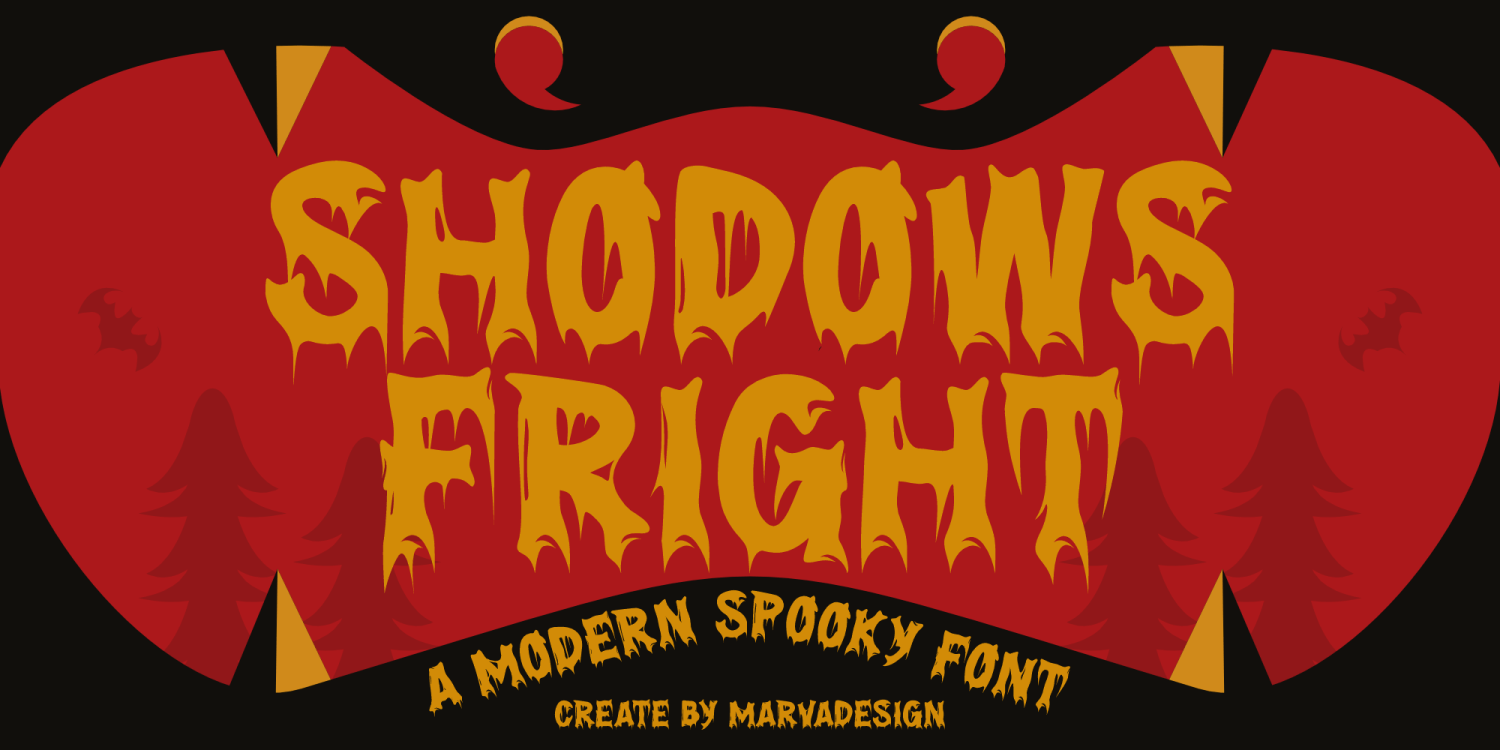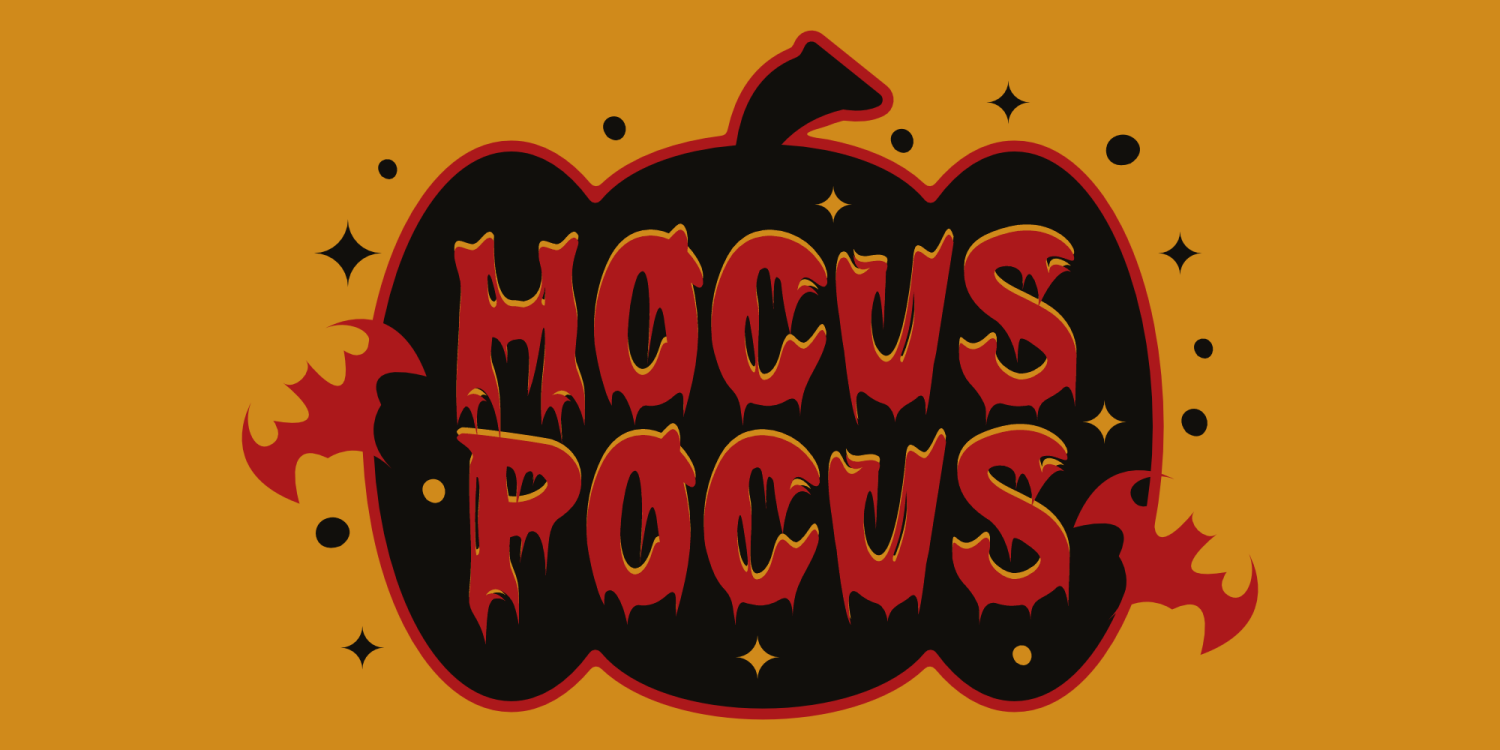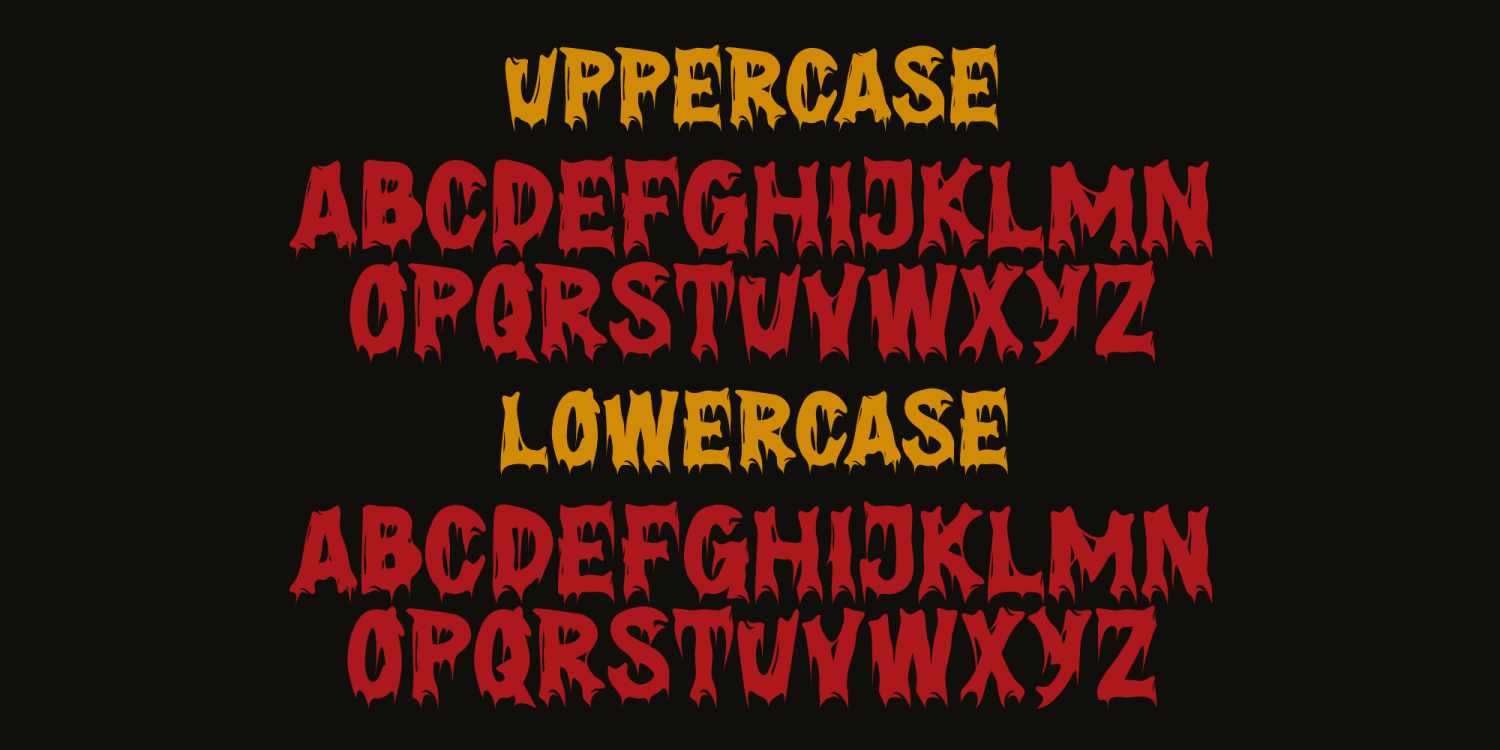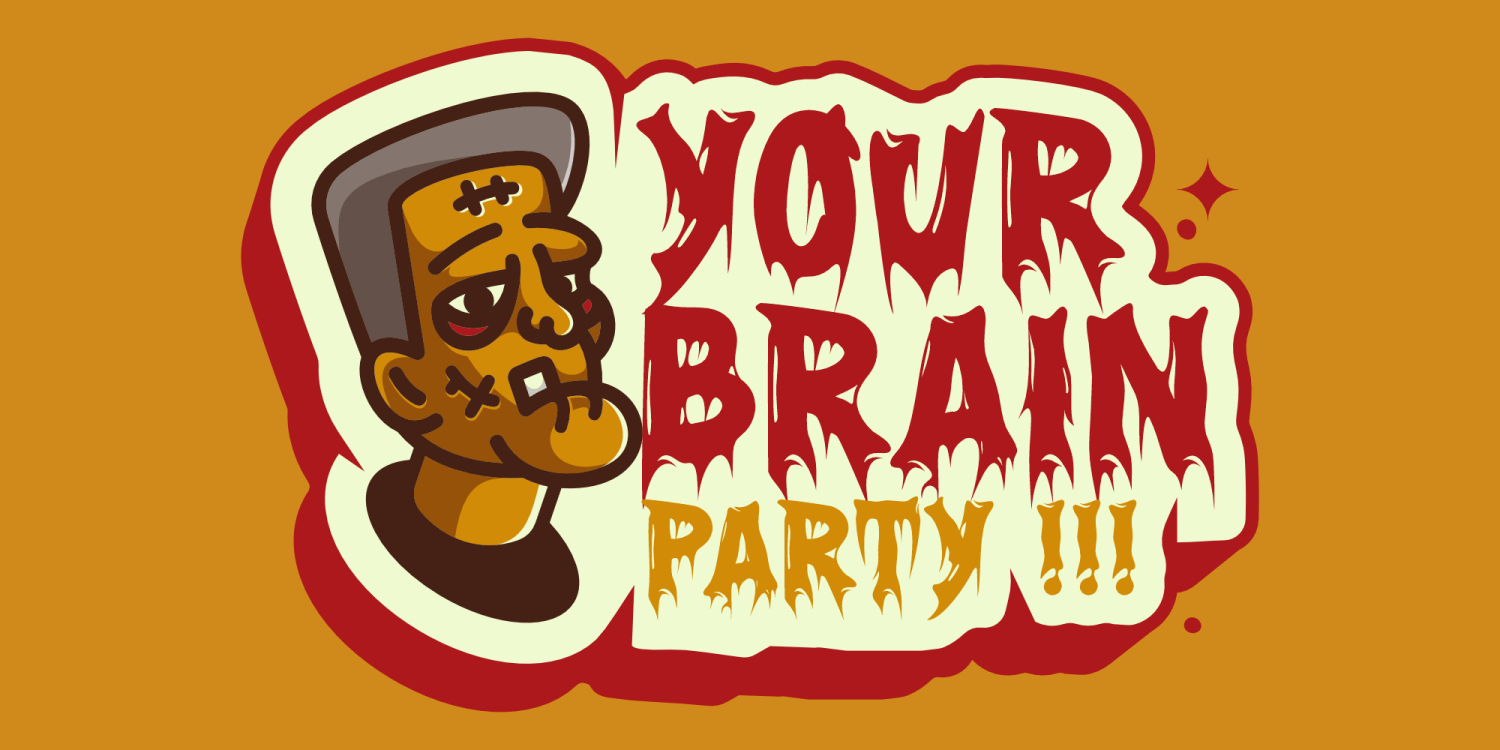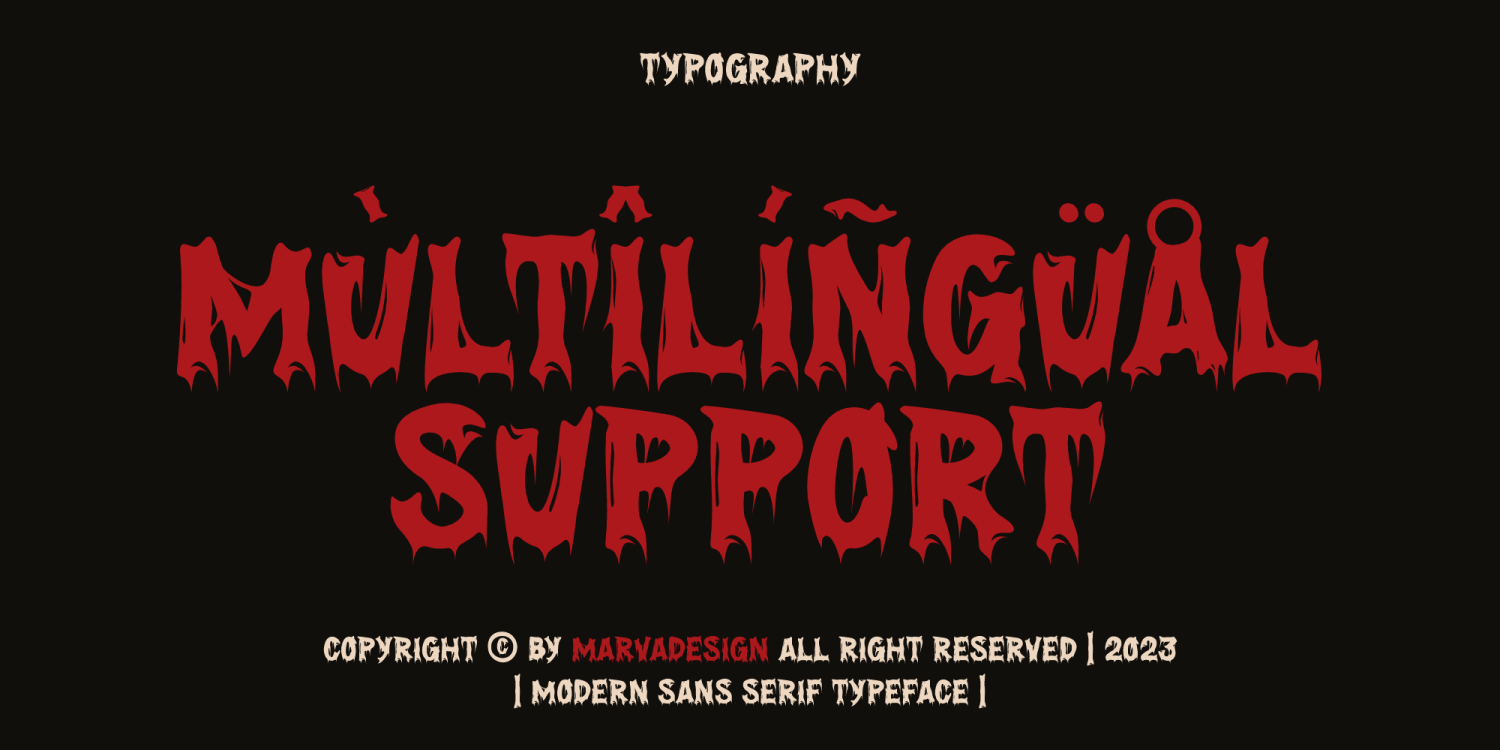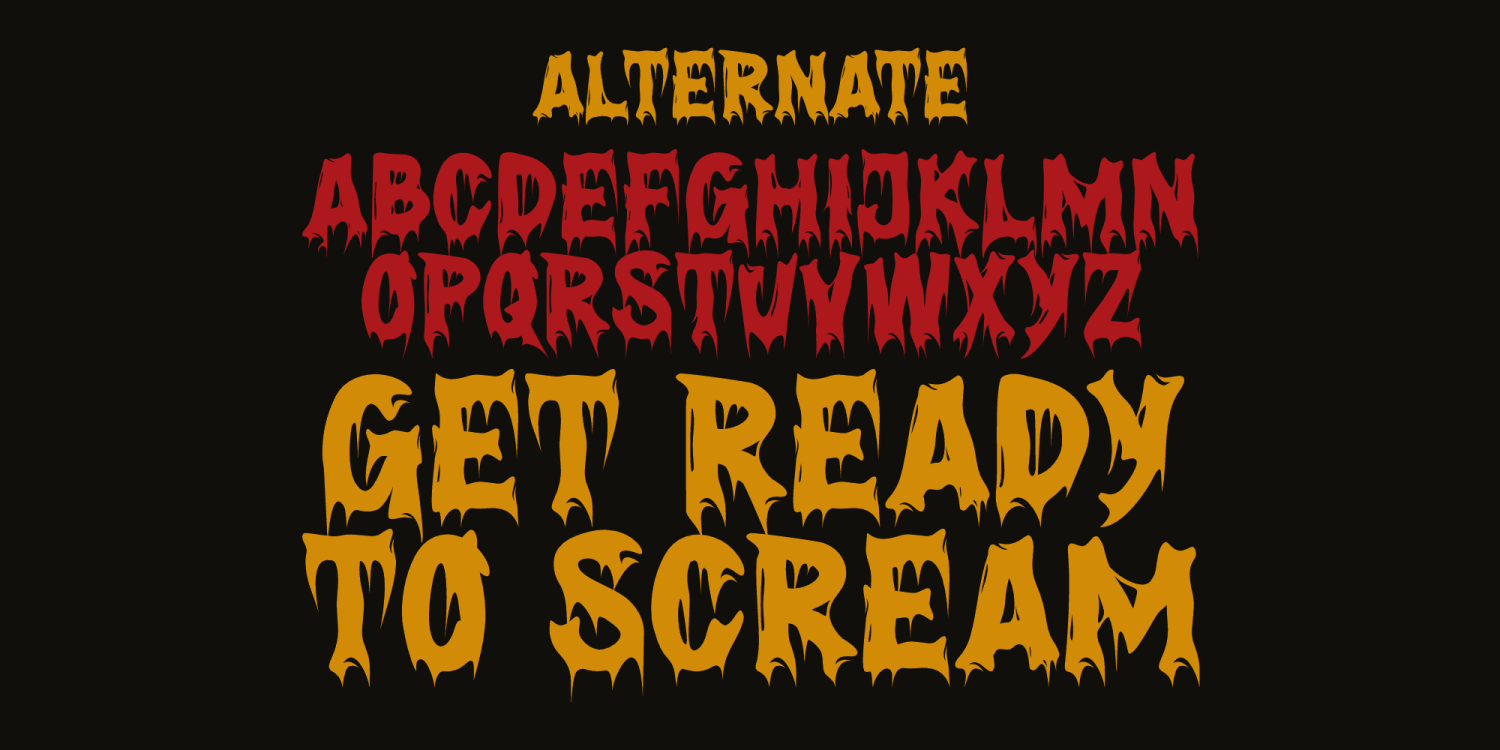
Shadows Fright
Introducing The Shadows Fright font is a modern spooky typeface designed to evoke an eerie, horror-inspired aesthetic. This font features bold, jagged letterforms with dripping edges, reminiscent of melted wax or blood, making it a perfect choice for Halloween-themed designs, horror movie posters, and dark fantasy projects. The irregular and sharp contours give it a sinister, unsettling feel, enhancing its eerie appeal.
Shadows Fright includes uppercase and lowercase letters, both maintaining a consistent gothic and ominous style. The font's color palette, often seen in shades of deep red, burnt orange, and black, further reinforces its spooky and mysterious vibe. Its strong visual presence makes it suitable for eye-catching titles, branding, and event promotions related to horror and supernatural themes.
This font is ideal for designers looking to add a chilling, dramatic touch to their work while ensuring readability and aesthetic cohesion in horror-themed projects.